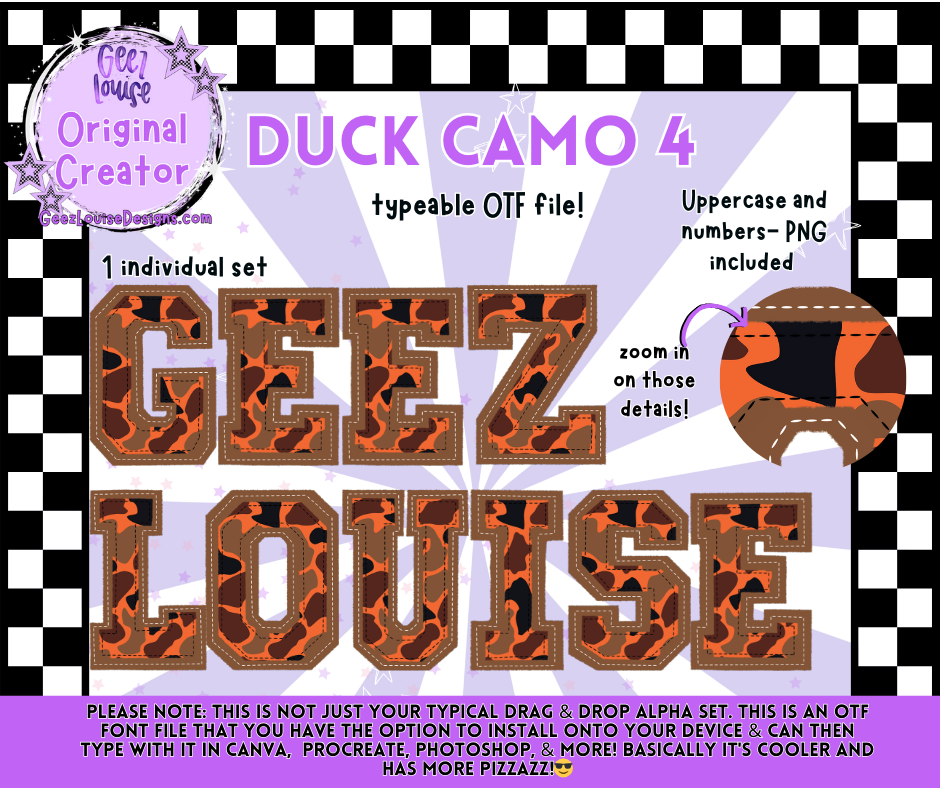
Duck Camo #4— Typeable OTF Font + PNG
Orange ducks. Black chaos. Full send. Duck Camo 4 is for the creators who want their type to feel like a camo fever dream. Bold, bratty, and ready to headline your next drop.
Why It Slaps:
Ideal for merch mockups, seasonal chaos, and mascot mayhem
Loud enough to stand alone, weird enough to layer